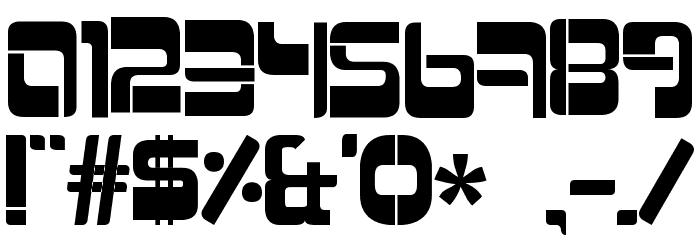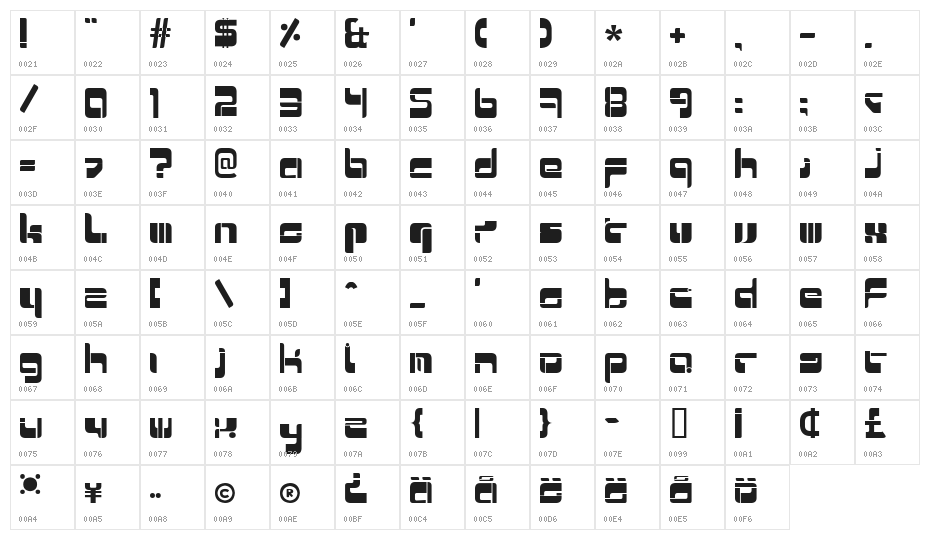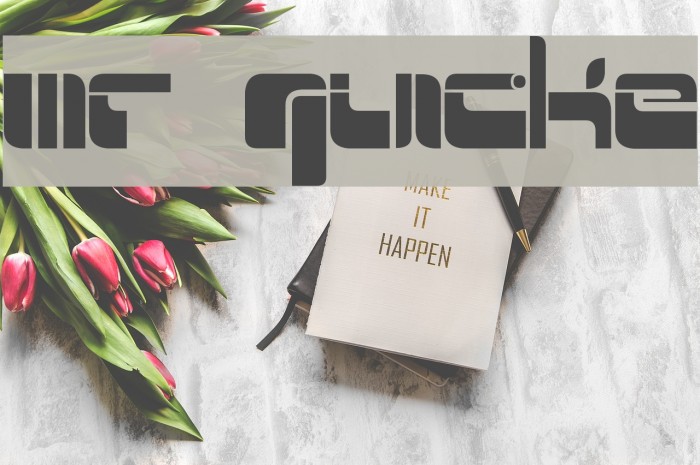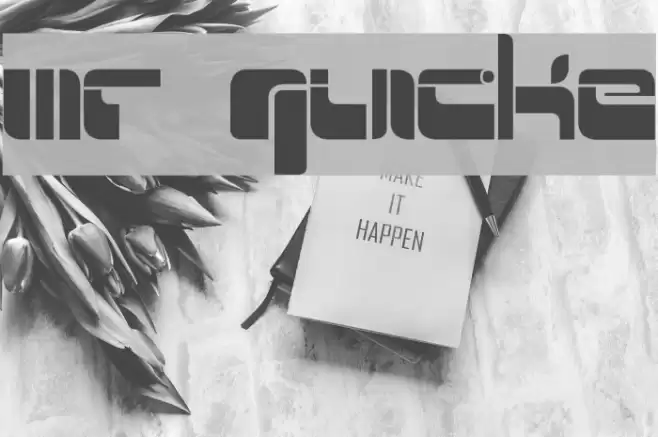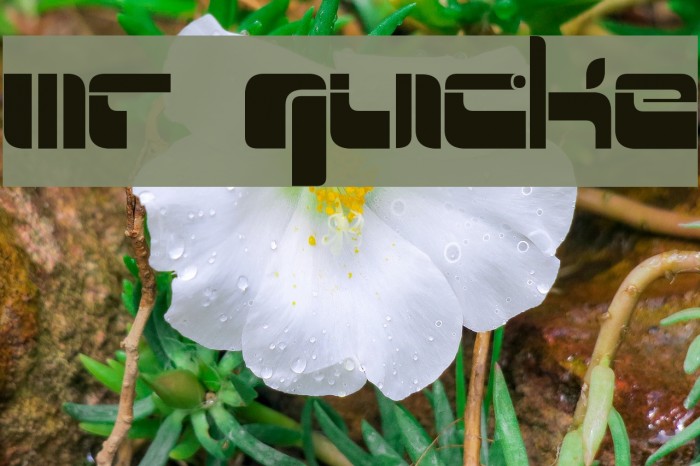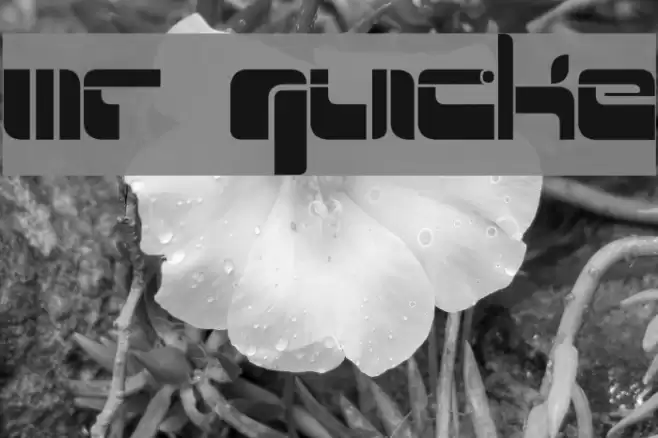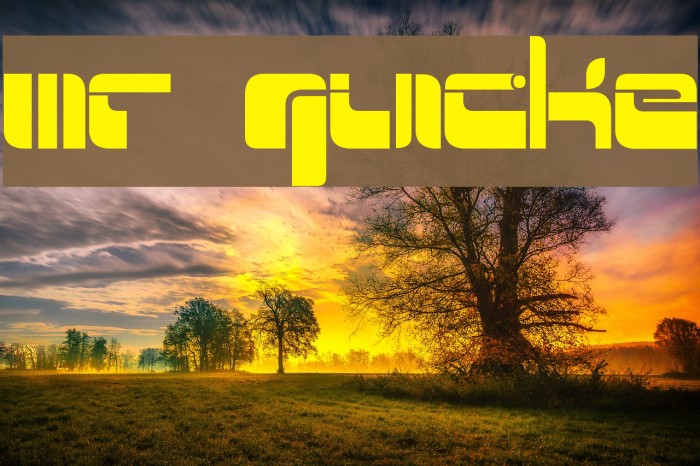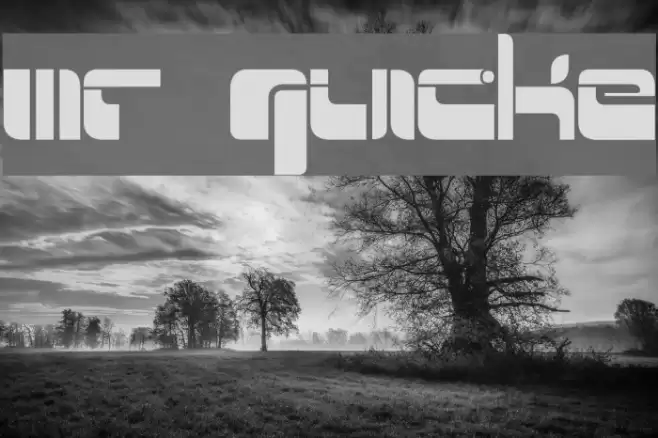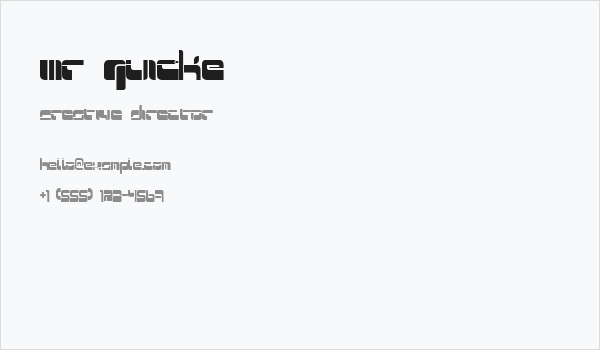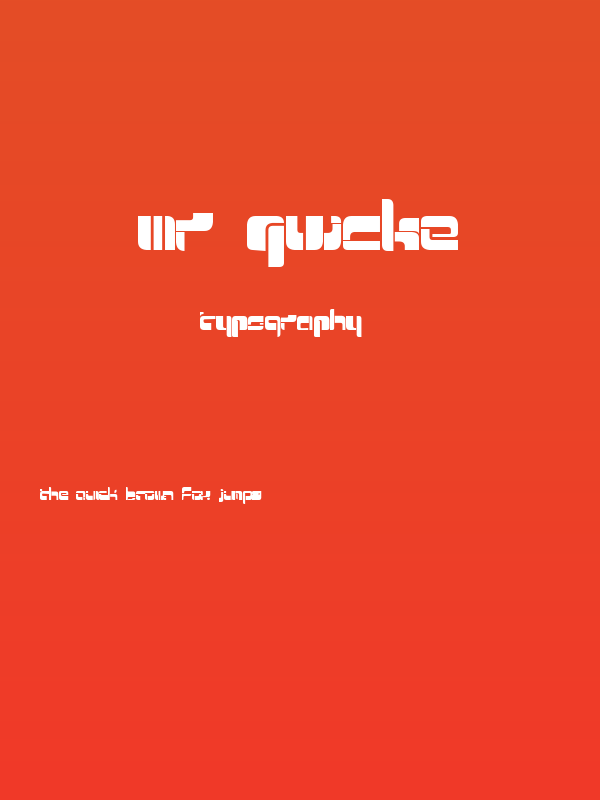
Mr Quicke Font
Mr Quicke Description
This font features a bold, futuristic design with a strong geometric influence. Each character is composed of thick, block-like shapes that create a sense of solidity and modernity. The letters are uniquely stylized with rounded edges and cut-out sections, giving them a distinctive, almost digital appearance. The uniformity in stroke width across all characters contributes to a cohesive and structured look. This font is highly legible at larger sizes, making it ideal for impactful headlines or branding materials. The numbers and special characters maintain the same bold and geometric style, ensuring consistency throughout any text.
Proposed ProjectsIdeal for tech branding, futuristic posters, video game titles, and sci-fi themed projects.